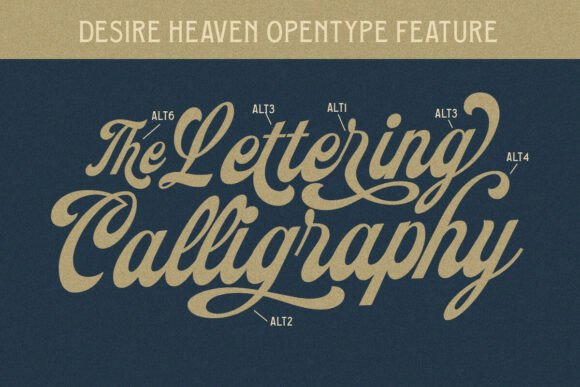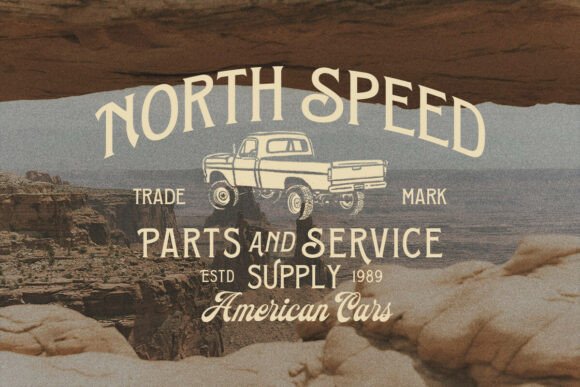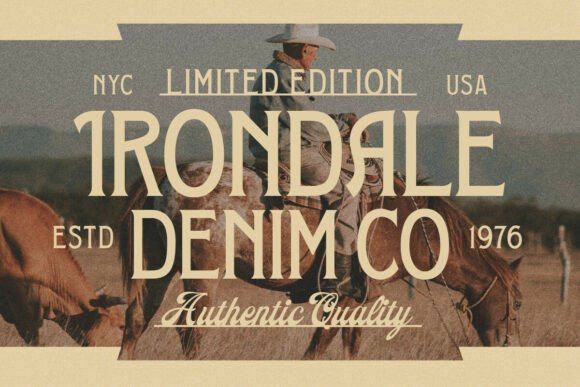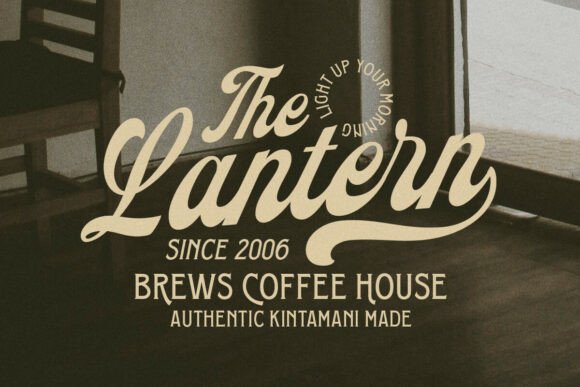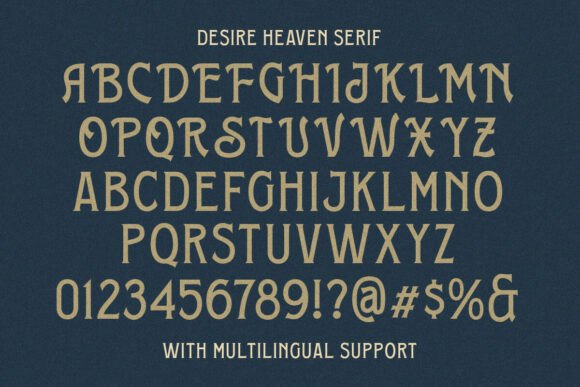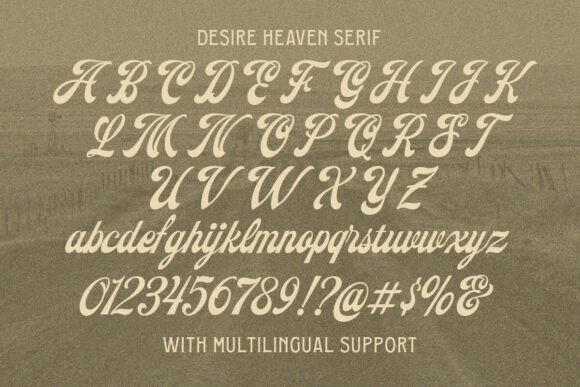
Introducing the Desire Heaven Font: Elevate Your Designs with Timeless Elegance
Are you a designer or crafter looking for a font that exudes sophistication and refinement? Look no further than the Desire Heaven Font, a stunning duo font that combines a bold, stately serif with a gorgeous, flowing script. This perfect pairing is ideal for creating powerful logos and upscale branding that demands attention.
The Desire Heaven Vintage Collection Duo Font: A Perfect Blend of Style and Elegance
The Desire Heaven Vintage Collection Duo Font is a masterful blend of two distinct font styles that work seamlessly together to create a unique and captivating visual identity. The bold, stately serif font is perfect for commanding headlines, while the gorgeous, flowing script font adds a touch of refined elegance. This duo font combination is reminiscent of premium mid-20th century American signage or classic spirit labels, evoking a sense of nostalgia and sophistication.
Key Features of the Desire Heaven Font
- Bold and Stately Serif Font: The serif font is designed to make a statement, with strong, confident lines that demand attention.
- Gorgeous and Flowing Script Font: The script font adds a touch of elegance and refinement, perfect for adding a sophisticated touch to your designs.
- Perfect Pairing: The duo font combination is carefully crafted to work seamlessly together, creating a cohesive and visually appealing design.
- Vintage Inspiration: The font is inspired by premium mid-20th century American signage and classic spirit labels, giving it a timeless and authentic look.
Use the Desire Heaven Font for a Range of Design Projects
The Desire Heaven Font is versatile and can be used for a range of design projects, including:
- Logo Design: Create powerful and sophisticated logos that make a statement.
- Branding: Elevate your brand with upscale branding that demands attention.
- Signage: Create eye-catching signage that captures the essence of your business or event.
- Packaging: Add a touch of elegance to your product packaging with this stunning duo font.
Why Choose the Desire Heaven Font?
There are many reasons why designers and crafters choose the Desire Heaven Font for their design projects. Here are just a few:
- Unique and Captivating Design: The Desire Heaven Font is a one-of-a-kind duo font that adds a touch of sophistication to any design project.
- High-Quality and Authentic Look: The font has a high-quality and authentic look that is reminiscent of premium mid-20th century American signage and classic spirit labels.
- Versatile: The font can be used for a range of design projects, from logo design to packaging.
The Desire Heaven Font is a stunning duo font that effortlessly blends a bold, stately serif with a gorgeous, flowing script. With its unique and captivating design, high-quality and authentic look, and ease of use, this font is perfect for designers and crafters looking to elevate their design projects. Whether you’re creating powerful logos, upscale branding, or eye-catching signage, the Desire Heaven Font is the perfect choice.